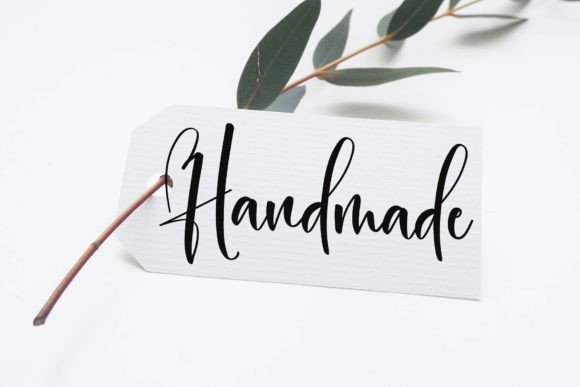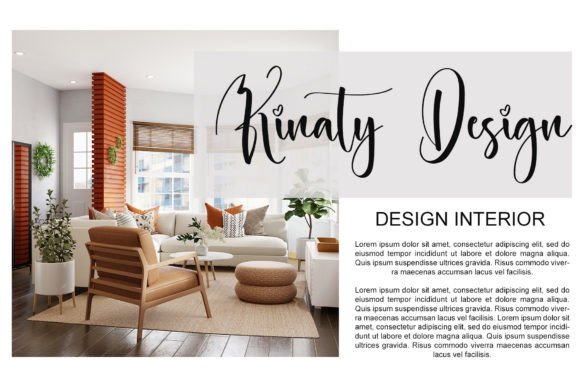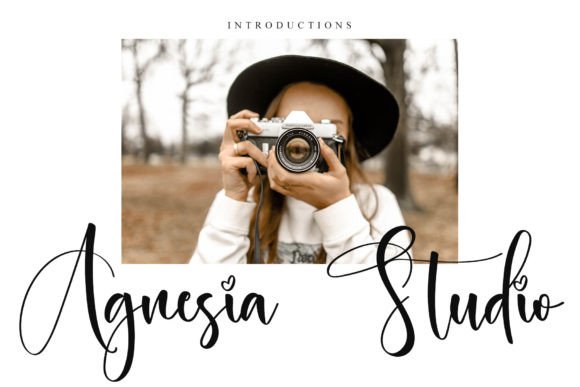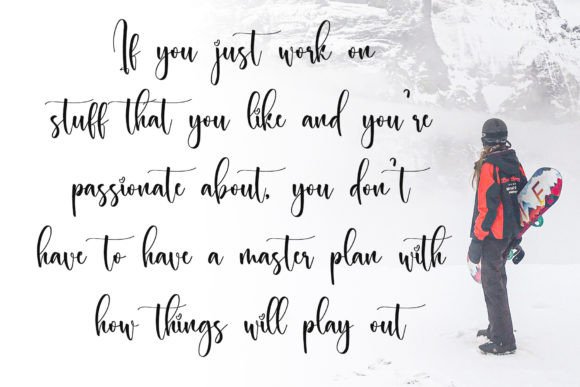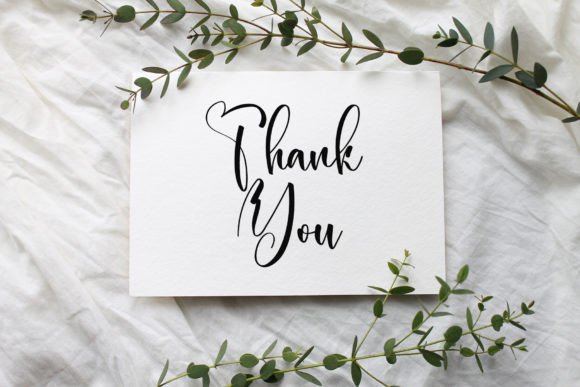
Introduction to Sarnity Font Font
Fonts play a crucial role in design, and the Sarnity Font font is a typeface that brings both character and versatility to any project. Whether you’re working on a branding project, a website, or a print design, the Sarnity Font font offers a unique style that can elevate your work.
Sarnity is a sweet and cursive handwritten font.
This gentle font will look gorgeous on a variety of design ideas It will add a joyful and romantic touch to each of your projects.
Key Features of Sarnity Font Font
Why Choose Sarnity Font Font?
The Sarnity Font font is more than just a typeface – it’s a design tool that helps you communicate your message with style and clarity. Its unique character set and versatile design make it suitable for a wide range of applications, from elegant invitations to bold headlines.
With its carefully crafted letterforms and balanced proportions, the Sarnity Font font ensures readability and visual appeal across all mediums.
What makes Sarnity Font font special?
The Sarnity Font font stands out with its unique design, exceptional readability, and versatility across various design applications.